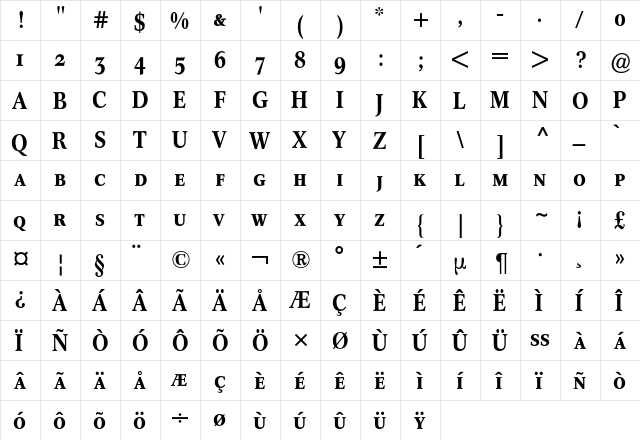
Concorde Nova Expert BQ Regular
Design Context for Concorde Nova Expert BQ Typeface
Concorde Nova Expert BQ takes a measured approach to typography — its balanced proportions and neutral character make it a reliable workhorse for both digital and print work.